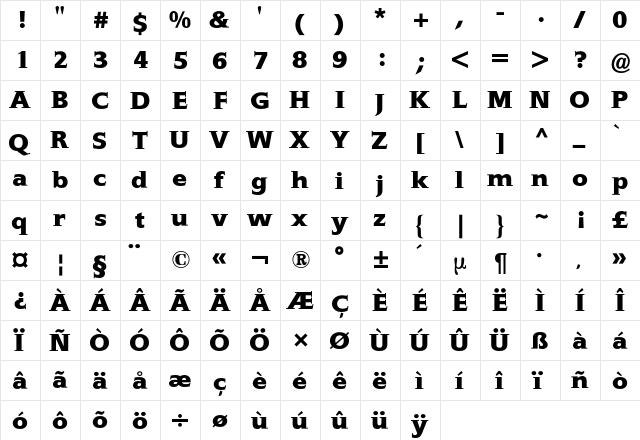
Epikur BQ Regular
Design Context for Epikur BQ Typeface
Epikur BQ takes a measured approach to typography — its balanced proportions and neutral character make it a reliable workhorse for both digital and print work.